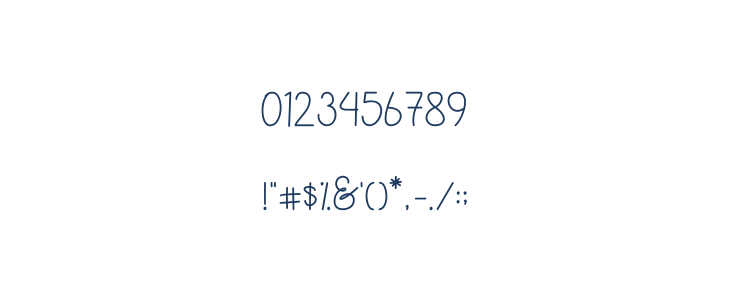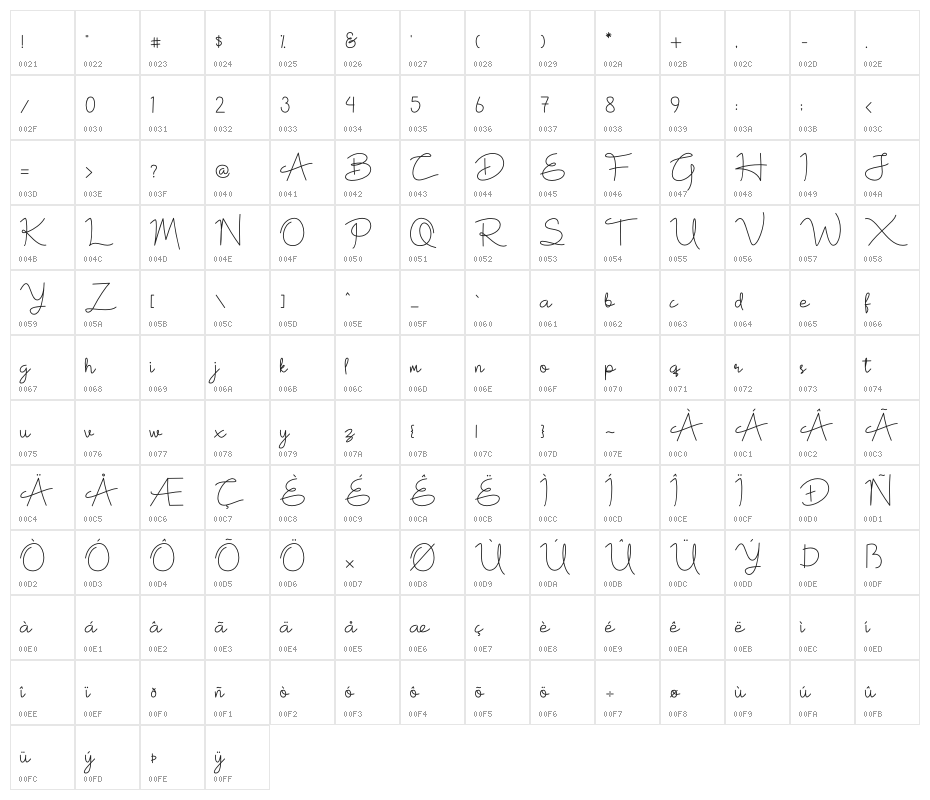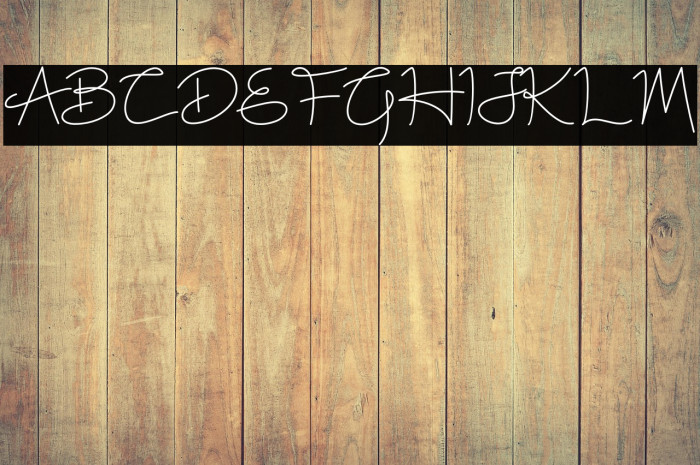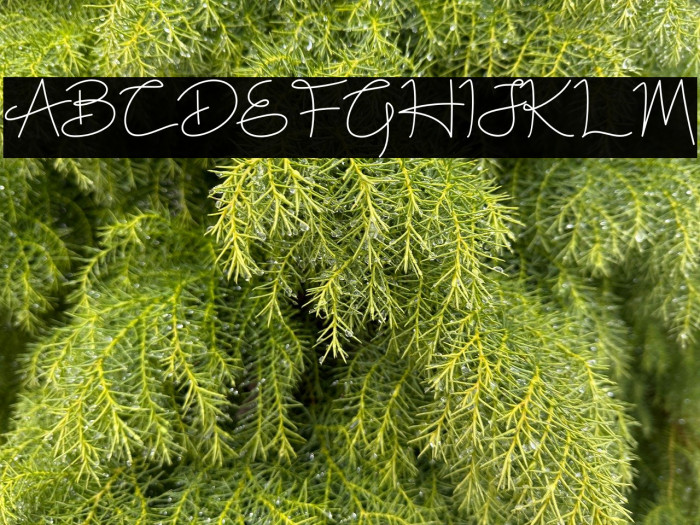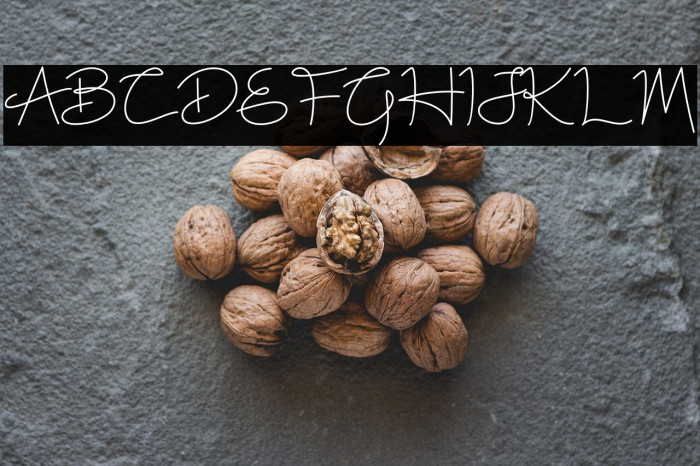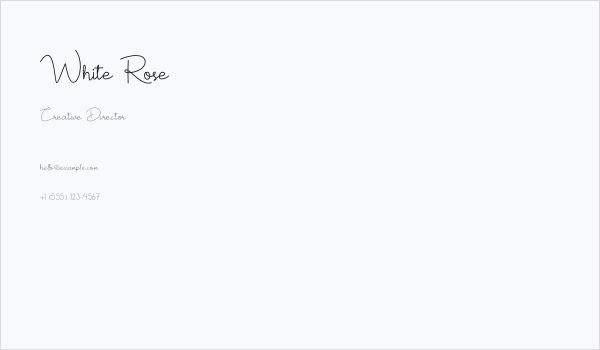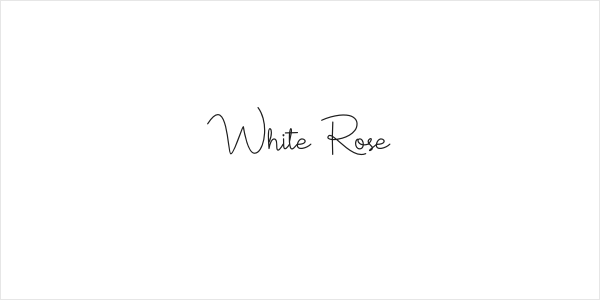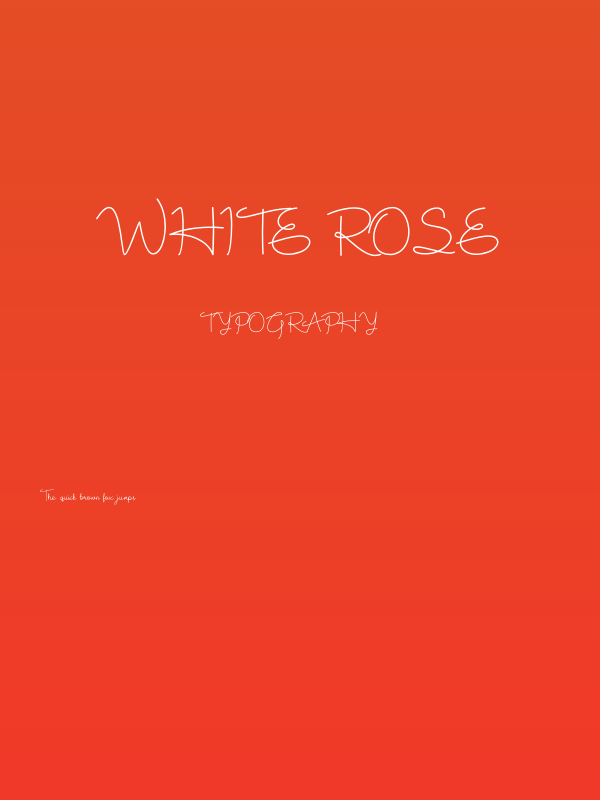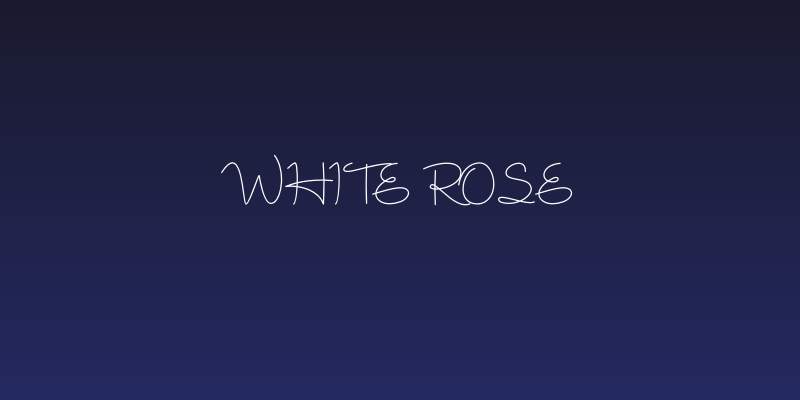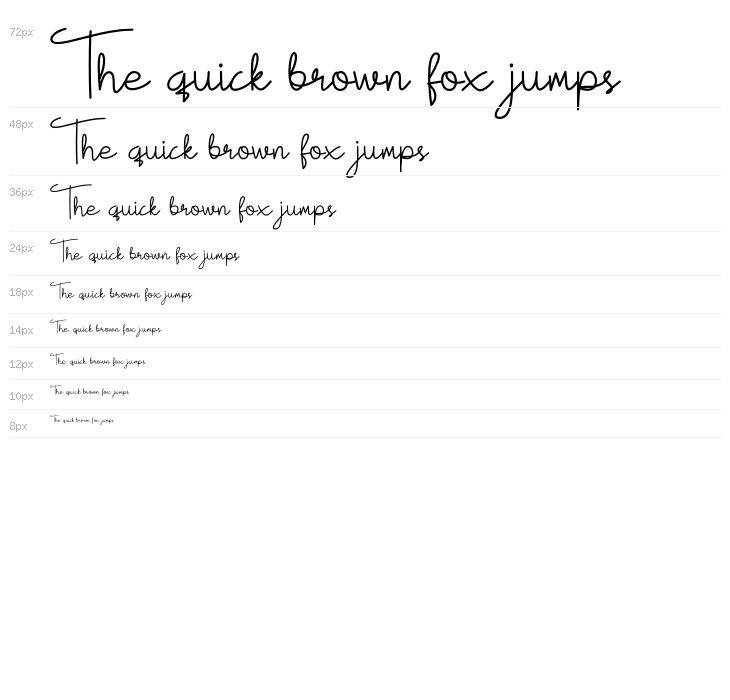
White Rose Font
White Rose Description
This font exhibits a charming and whimsical handwritten style, characterized by its flowing, cursive letters that convey a sense of elegance and playfulness. The uppercase letters are tall and slender, with a slight slant that adds to their dynamic appearance. The lowercase letters maintain a consistent flow, connecting smoothly in a script-like manner. The numerals are clear and maintain the same playful style, making them easily legible. Special characters are thoughtfully designed to match the overall aesthetic, ensuring a cohesive look across all text. This font's unique style makes it suitable for creative projects that require a personal touch.
| Proposed Projects | Ideal for wedding invitations, greeting cards, personal branding, and creative projects that require a personal, elegant touch. |